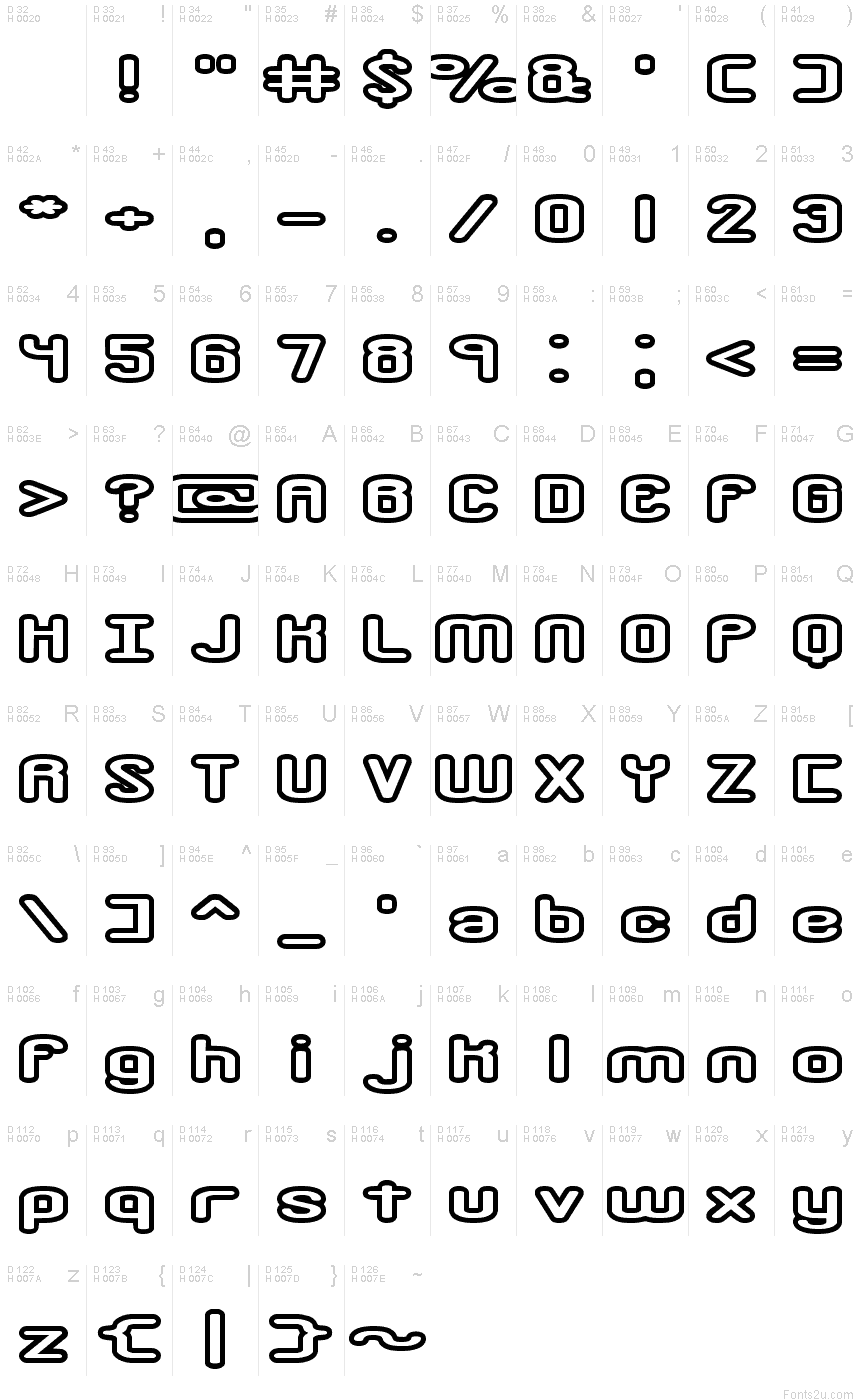
Crackdown O1 -BRK-
Crackdown O1 -BRK- font by ÆNIGMA FONTS wraps each letter in a thick, rounded outline that feels both playful and assertive. The connected, tubular shapes create a smooth, rolling rhythm that stands out instantly while still staying easy to read at a glance. It’s a free font that leans into a bold, groovy look perfect for attention-grabbing titles.
This free font works especially well for gaming logos, sci‑fi or club posters, skate or streetwear branding, bold web banners, YouTube thumbnails, stickers, and event flyers. Use Crackdown O1 -BRK- large for main headlines, then pair it with a simple neutral sans serif for smaller supporting text to keep layouts balanced and clear.